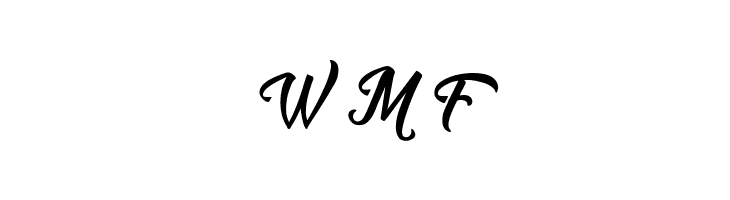
• Amontilladios
A flowing, cursive font with elegant, sweeping lines and intricate flourishes.
• Amontillado
An elegant and sophisticated script font with intricate swashes and flourishes.
• Amontillados
An elegant, cursive font with ornate flourishes and a handwritten style.
• Amood I
A modern, geometric font with clean lines and uniform stroke weight.
• Amood II
A futuristic, geometric font with bold, angular letterforms.
• Amood III
A bold, geometric font with a modern, industrial aesthetic.
• Amood IV
A classic serif font with elegant strokes and balanced contrast, suitable for diverse applications.
• Amood V
A modern, geometric font with bold, angular shapes and a futuristic style.
• Amood VI
A bold, geometric font with uniform stroke width and square outlines.
• Amood VII
A bold, modern font with a futuristic and geometric design.